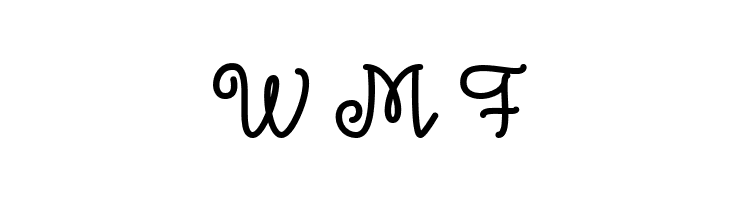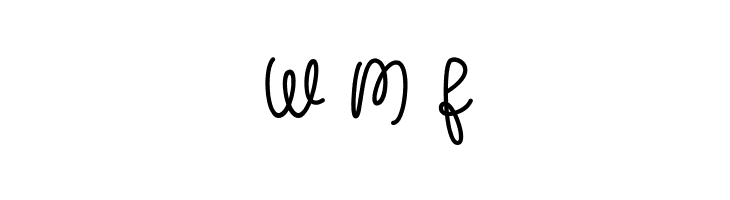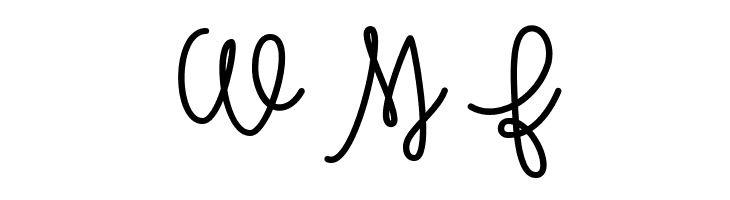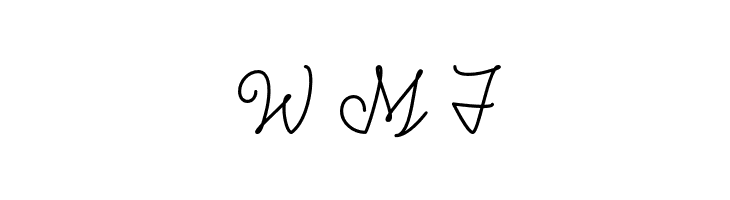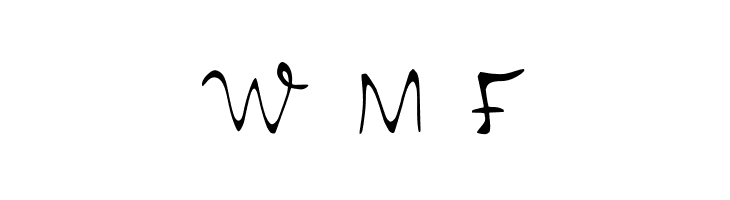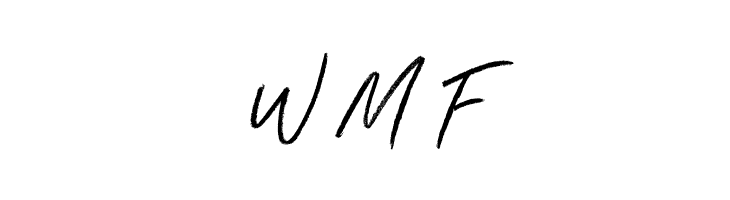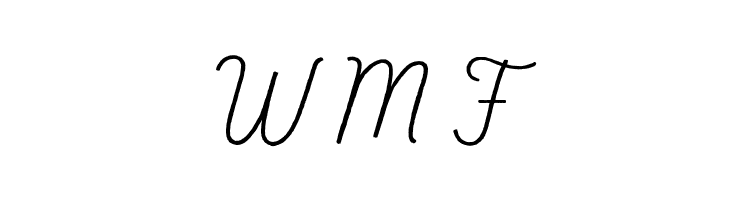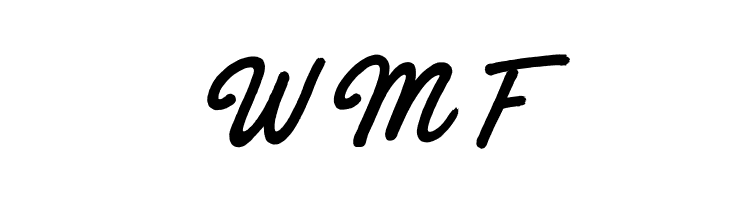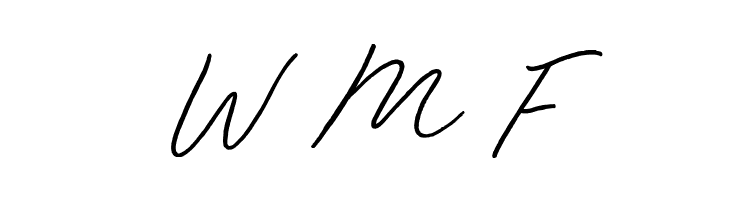
A playful, handwritten script font with flowing, interconnected strokes.
A playful, handwritten font with smooth, flowing curves and interconnected letters.
A playful, whimsical script font with flowing, interconnected letters.
A dynamic, handwritten script font with fluid, connected strokes.
A cursive, elegant font with interconnected letters and consistent stroke width.
A bold, fluid script font with elegant, interconnected letters.
A flowing, elegant script font with smooth, connected strokes.
A fluid, cursive script font with interconnected letters and a natural handwriting style.